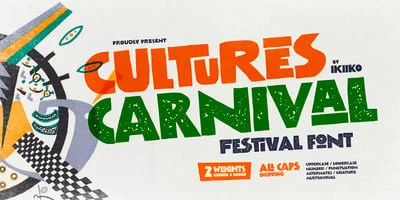
Cultures Carnival Font
Cultures Carnival Font is ideal for festival posters, cultural event branding, multicultural celebration graphics, carnival advertisements, street fair signage, parade banners, food festival materials, art exhibition titles, community event promotions, and vibrant party invitations. This exuberant typeface captures the joyful spirit of cultural celebrations and festive gatherings worldwide.
What makes Cultures Carnival Font exciting is its dynamic celebration of global diversity through playful letterforms that dance with the rhythm of international festivals. The font embodies the infectious energy and colorful vibrancy of carnival celebrations, featuring lively character variations that seem to move with music and laughter. Its spirited design elements incorporate decorative flourishes and festive details that evoke the joy, unity, and cultural richness found in celebrations across different communities and traditions.
The Cultures Carnival Font family includes multiple festive variations such as Regular, Bold, Outline, Shadow, and Decorative styles. Each version maintains the font's celebratory character while offering different levels of visual impact and ornamental complexity for diverse multicultural design applications and festival branding needs.
Whether you're designing cultural festival promotions, creating multicultural brand identities, or developing celebratory marketing materials, Cultures Carnival Font provides the vibrant typography needed for truly engaging cultural communication. This font perfectly captures the universal language of celebration while honoring the diversity of global traditions. Its energetic letterforms ensure exceptional visual impact across colorful posters, dynamic digital displays, and festive promotional materials that bring communities together in joyful celebration.